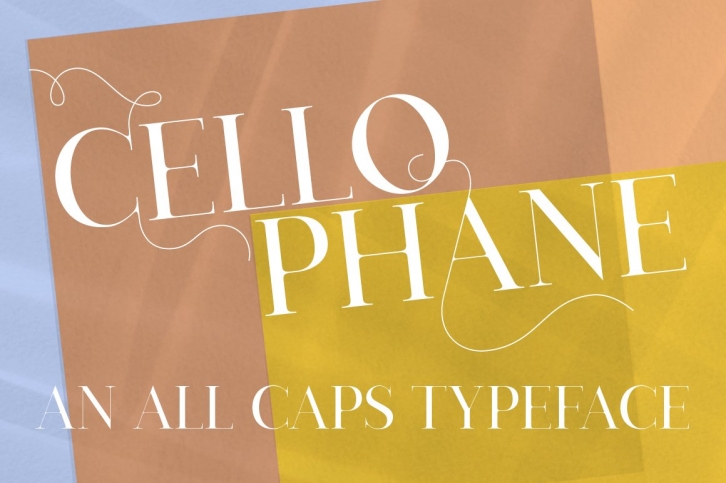
Cellophane is a display serif font. It is perfect for logos, headings, t-shirt, news, posters, magazines etc.
- Punctuation, numerals & symbols
- Multiple language support
- 400+ glyphs
- Slashed zero
- Localized characters